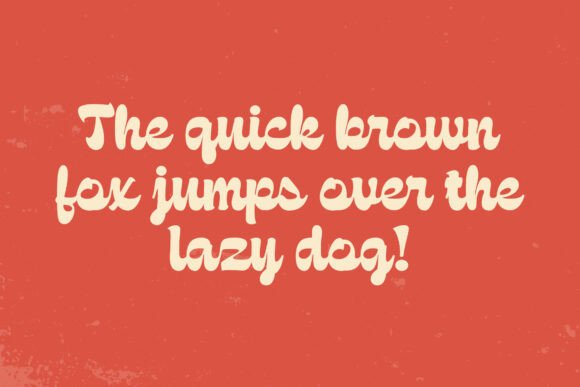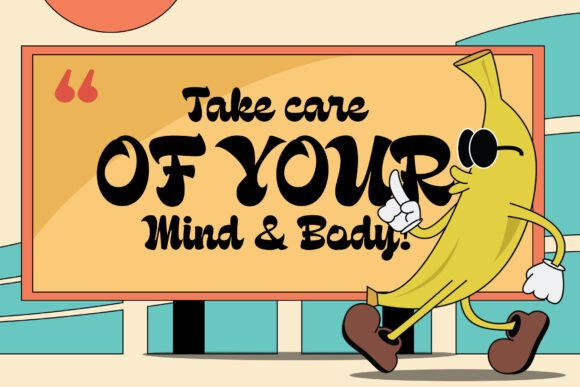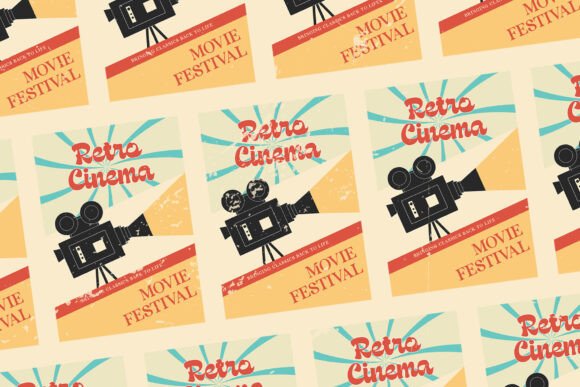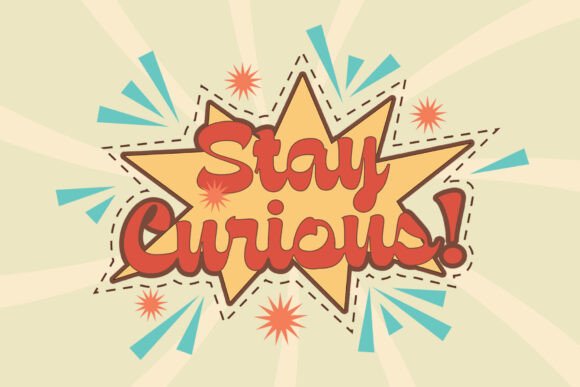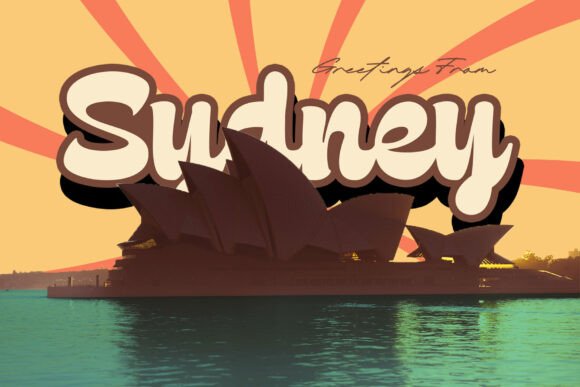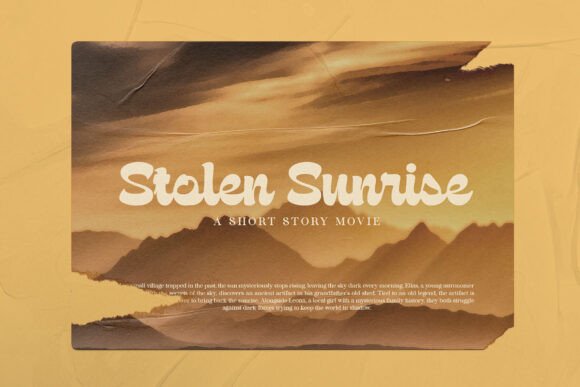
Introduction to Lorelco Script Font
Remember that moment when you’re brainstorming ideas for a new project, and you stumble upon the perfect font that instantly transports you to a bygone era? For many designers, that moment is a game-changer. It’s the spark that ignites the creative fire, and it’s what sets their project apart from the rest. For those who’ve been searching for that elusive font, we’re excited to introduce you to the charming Lorelco Script Font.
This delightful retro-style script font is a design resource that’s sure to bring a touch of nostalgia and whimsy to your creative project. With its bold and flowing letterforms, Lorelco Script Font is perfect for crafting vintage-inspired logos, playful packaging, cheerful posters, and eye-catching social media graphics.
Key Features of Lorelco Script Font
- Lorelco Script Font is a high-quality, elegant script font ideal for creative projects requiring a touch of sophistication.
- Lorelco Script Font includes a range of characters, including uppercase and lowercase letters, numbers, and punctuation marks.
- The Lorelco Script Font is a versatile design resource, perfect for creating invitations, logos, typography-based art, and other creative projects that require a unique and elegant touch.
Honest Review: Lorelco Script Font
I recently stumbled upon the Lorelco Script Font and I’m excited to share my honest review. As a designer, I’m always on the lookout for high-quality design resources to elevate my creative projects. This script font definitely caught my attention, and I’ll break down what works well and where it falls short.
- Beautiful Cursive Script – The Lorelco Script Font features a stunning, elegant cursive script that’s perfect for adding a touch of sophistication to your designs.
- High-Quality Design – The font is well-designed and looks great on a transparent background, making it ideal for use in creative projects.
- Limited Character Set – Unfortunately, the font only includes a limited character set, which may not be suitable for complex text-based designs.
- No Unicode Support – This means you may encounter issues with special characters or languages that require Unicode support.
Overall, the Lorelco Script Font is a great addition to any designer’s library, offering a beautiful cursive script and high-quality design. While it has some limitations, it’s still a valuable resource for creative projects and can add a touch of elegance to your designs.
Tips for Getting the Most Out of Lorelco Script Font
Here are some tips to get the most out of the Lorelco Script Font:
- Use it in conjunction with other elegant fonts for a sophisticated look.